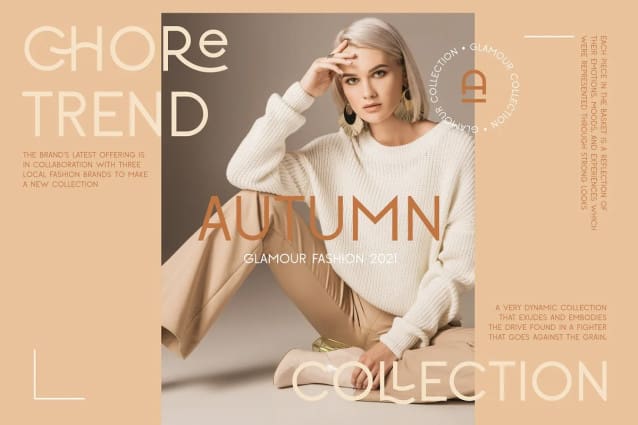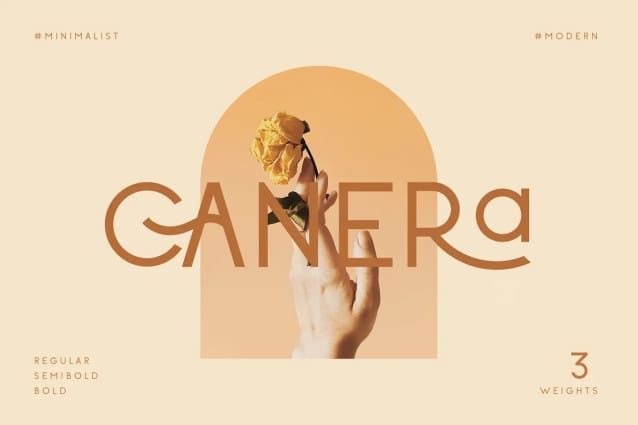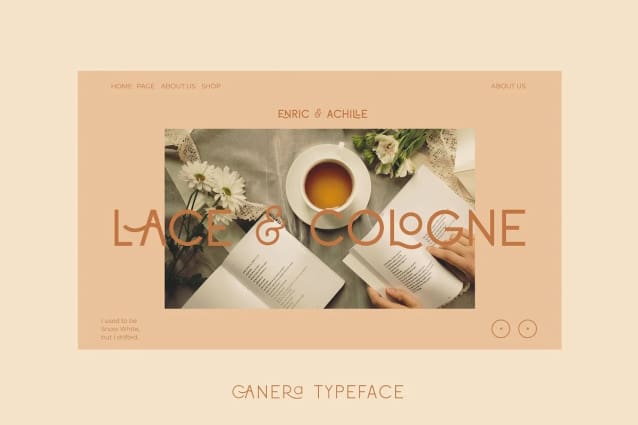
Canera Font
Canera Font, a simple Elegant modern typeface with beautiful ligatures, tons of special alternative glyphs, ornament and multilingual support. It’s a very versatile font that works great in large and small sizes. Perfect for branding projects, Logo design, Clothing Branding, product packaging, magazine headers, or simply as a stylish text overlay to any background image.